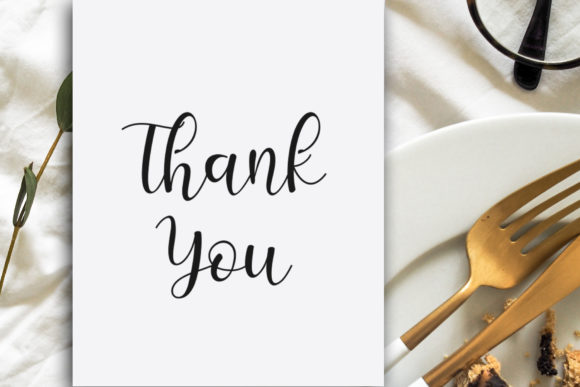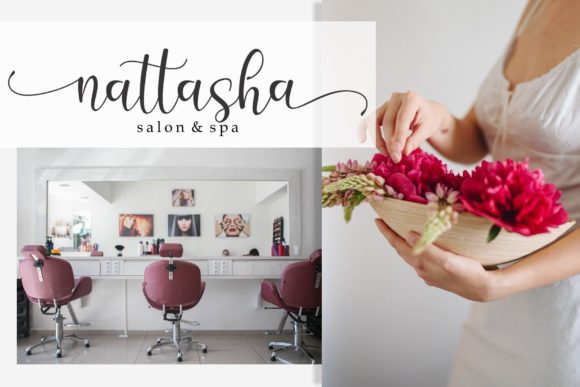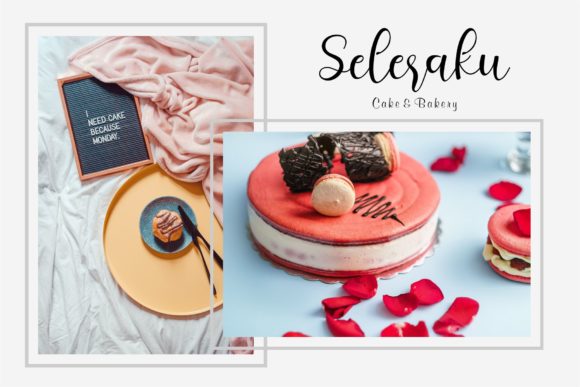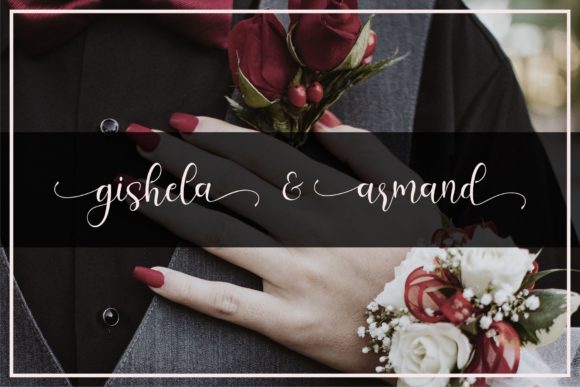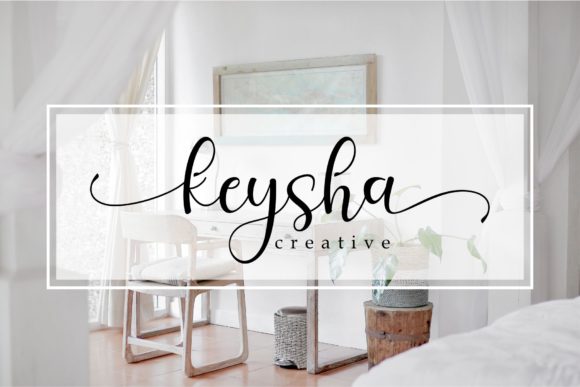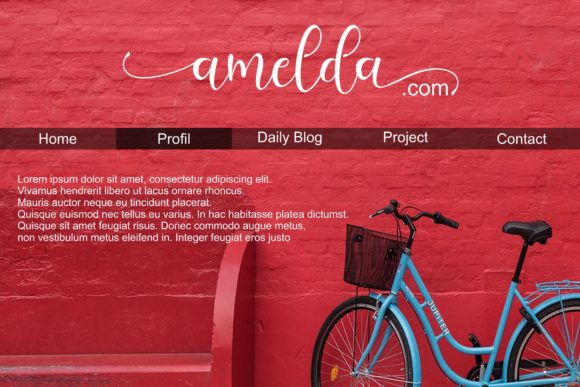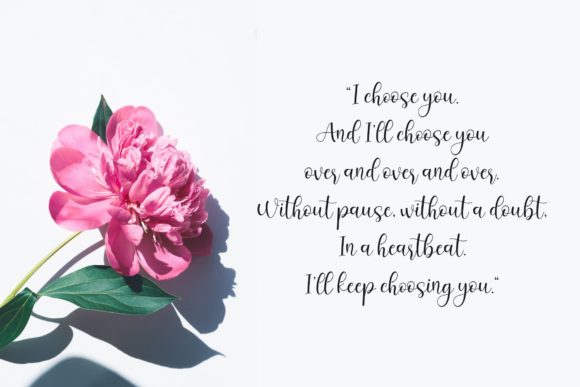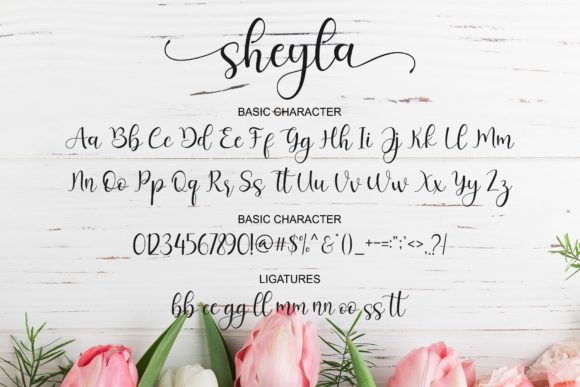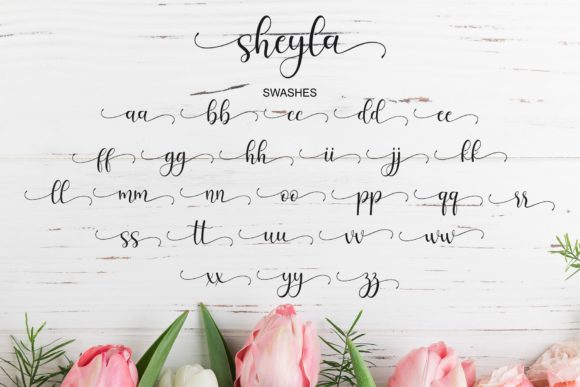
HomeScript FontsSheyla Script Font Script Fonts Sheyla Script Font FacebookXPinterestWhatsApp Sheyla Script Font Poster 2 Sheyla Script Font Poster 3 Sheyla Script Font Poster 4 Sheyla Script Font Poster 5 Sheyla Script Font Poster 6 Sheyla Script Font Poster 7 Sheyla Script Font Poster 8 Sheyla Script Font Poster 9 Sheyla Script Font Poster 10 About Sheyla Script Font Sheyla is a beautiful and modern script full of love. Get inspired by its authentic charm! DOWNLOAD NOW People also explored Whimsical Font Filanella Font Shofiyah Font Maharani Font Hey Pumpkin Font Redwood Font The Flasher Font British Font Just Chilling Font 276 0 TagsSheyla Script Font Previous articleLa Petite FontNext articleCareless Font LEAVE A REPLY Cancel reply Comment: Please enter your comment! Name:* Please enter your name here Email:* You have entered an incorrect email address! Please enter your email address here Website: Save my name, email, and website in this browser for the next time I comment. Personal Use Free Breather Personal Use Free Read more about this font Zelega Zenega Personal Use Free Read more about this font Imelda Personal Use Free Read more about this font Krabuler Personal Use Free Read more about this font BLOG The 10 Best Handwriting Fonts to Add Personality to Your Designs 10 of the Best Handwriting Fonts for Adding Personality to Your Designs There will undoubtedly be no other better choice than handwriting fonts to give... Elegant Wedding Invitation Fonts – Handwritten & Script Fonts Where to Buy American Fonts Online in 2024 To increase your work productivity, choose the most readable fonts.